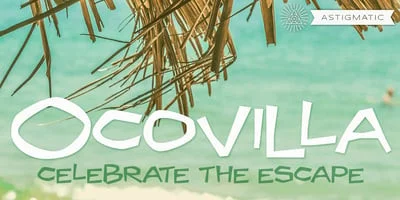
Ocovilla AOE Font
Ocovilla AOE Font is ideal for creative agency logos, artistic exhibition posters, modern fashion magazines, innovative tech startup branding, contemporary art gallery signage, cutting-edge product packaging, experimental music album covers, and avant-garde advertising campaigns.
This font is exciting because it pushes the boundaries of conventional typography with its unique character design and artistic flair that captures attention instantly. The Ocovilla AOE Font represents a bold departure from traditional letterforms, offering designers a fresh perspective on visual communication that stands out in today's crowded design landscape.
The Ocovilla AOE Font family features distinctive style variations including Regular, Bold, Light, Italic, Display, Condensed, Extended, and Artistic versions, providing creative professionals with comprehensive tools to express their most innovative design concepts and artistic visions.
Revolutionize your design approach with Ocovilla AOE Font that transforms ordinary text into extraordinary visual statements. This groundbreaking typeface combines artistic innovation with practical functionality, making it perfect for brands that want to establish a cutting-edge identity. The font's unique aesthetic appeals to forward-thinking audiences while maintaining readability across various applications. Whether you're developing brand identities for creative industries, designing promotional materials for art events, or creating content that needs to break through visual noise, Ocovilla AOE Font delivers the distinctive typography that sets your work apart. Its experimental nature makes it ideal for projects that celebrate creativity and innovation.